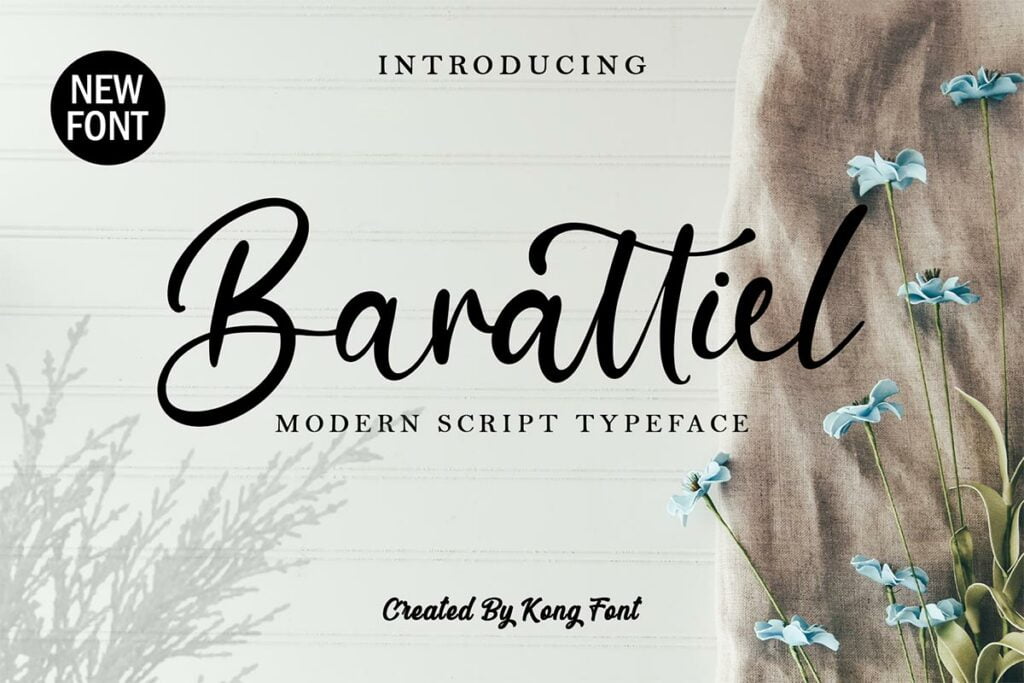
Barattiel Font
Barattiel Font, very suitable as to make adorable invitation for wedding, birthday, special day. A collection of letters and numbers suitable your projects also great for Logotype, Branding Design, Logo Design, Digital Lettering Arts, T-Shirt/Apparel, Poster, Magazine, Signs, Advertising Design, and also perfect for your other projects branding.
Barattiel Handwritten Font